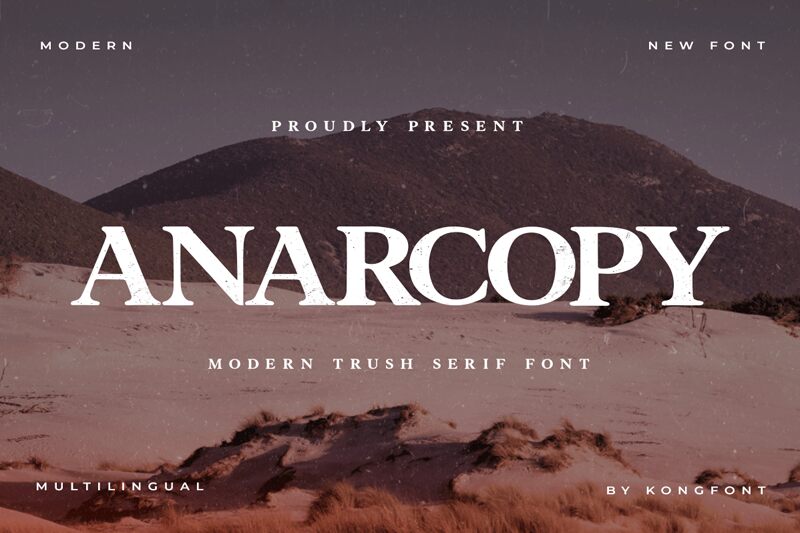
Anarcopy font by Kong Font is a free font with a modern twist while evoking a sense of authority and tradition. The typeface brings out a sophisticated, bold aesthetic in every letter, combining historical references to traditional serif fonts with contemporary artistic choices. While it contains a selection of legible characters, they are visibly aged and weathered for a more personal touch, which adds to their beauty.
Anarcopy font is elegant, vintage-inspired, and all it takes is an idea to bring your projects to life with the typeface. It’s created to be compatible with all sorts of platforms and devices, and its free personal license makes it great for poster designs, branding, social media content, book covers, typography art, invitations, packaging, merchandise, online streaming overlays, videos, advertisements, and more.